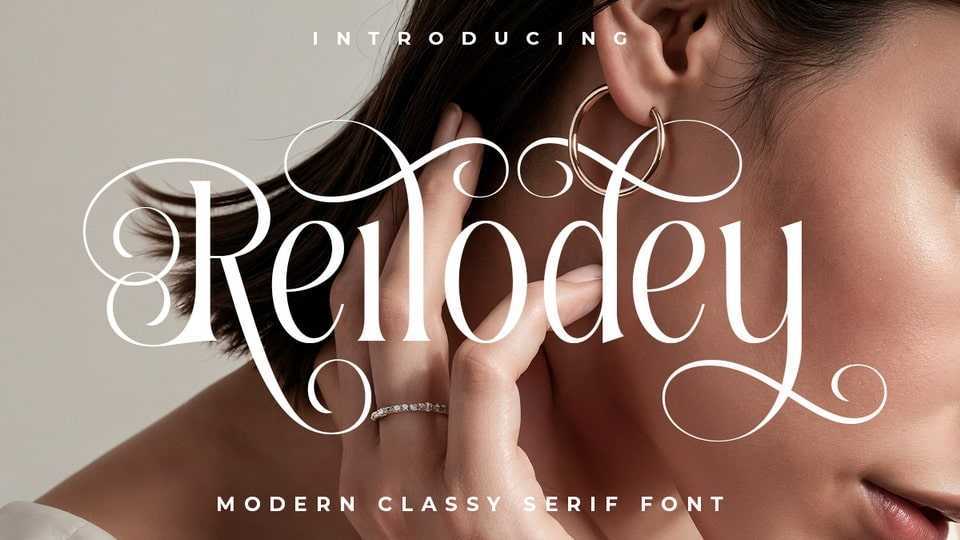
Download Reilodey font, a modern classy serif typeface inspired by classical calligraphy. Crafted with thin and condensed consistent strokes, this beautiful script font evokes a sense of minimalist, luxurious and classy.